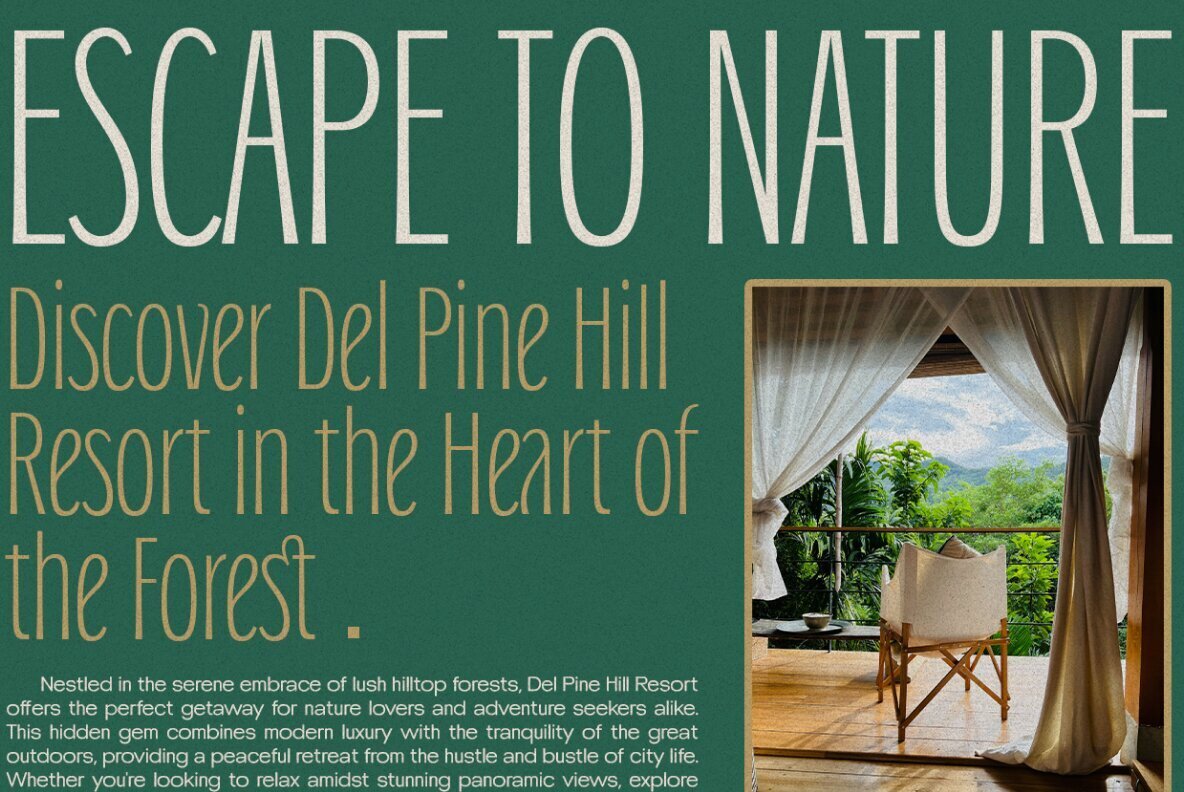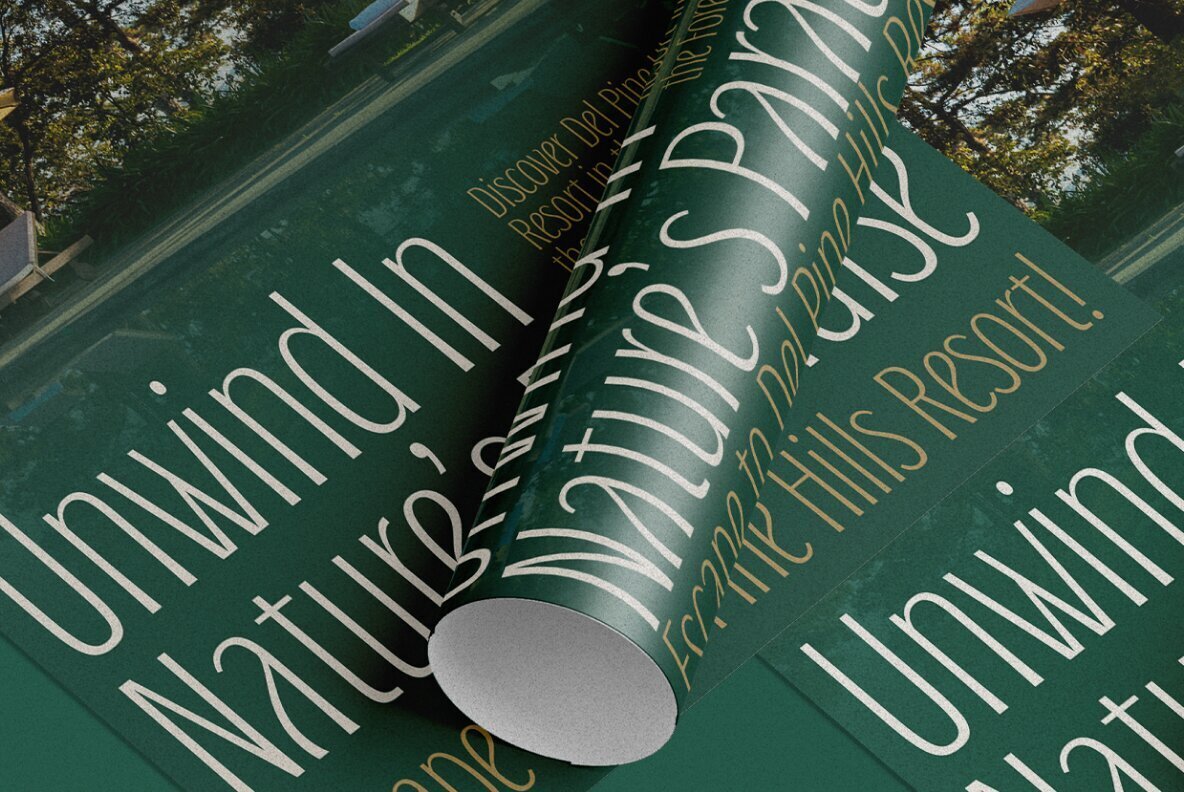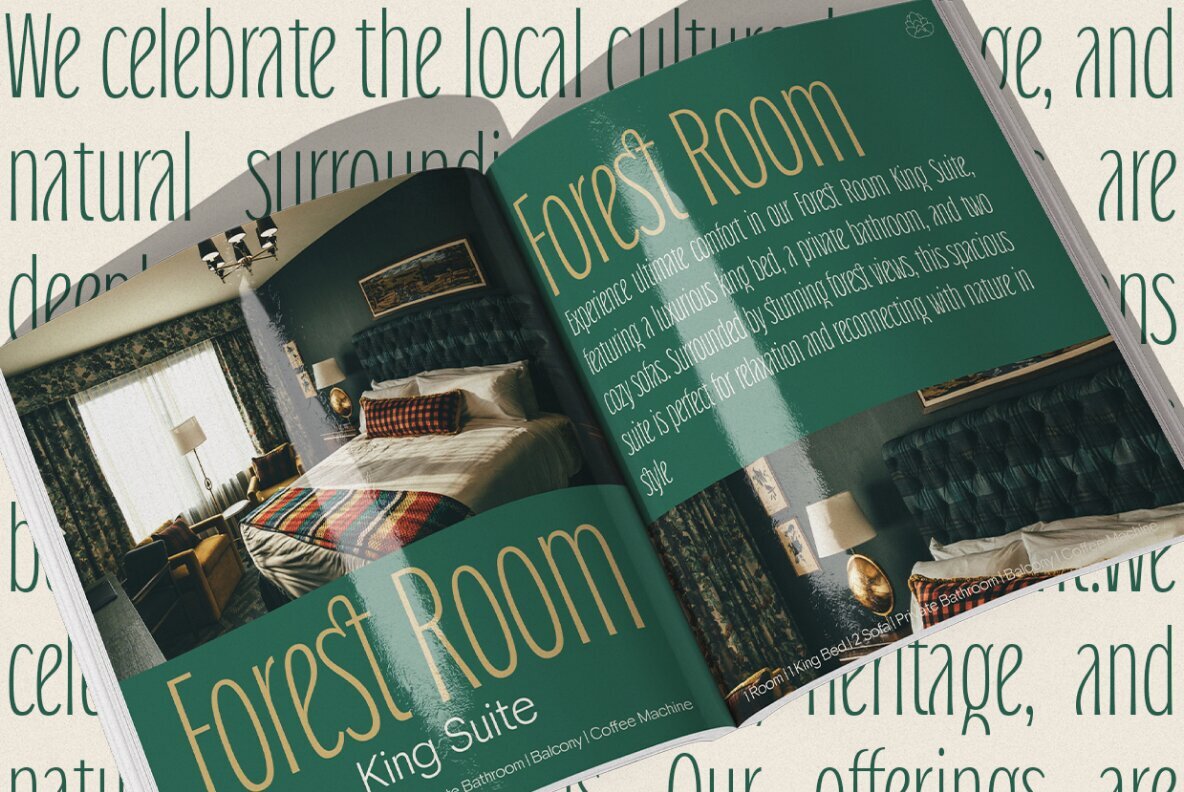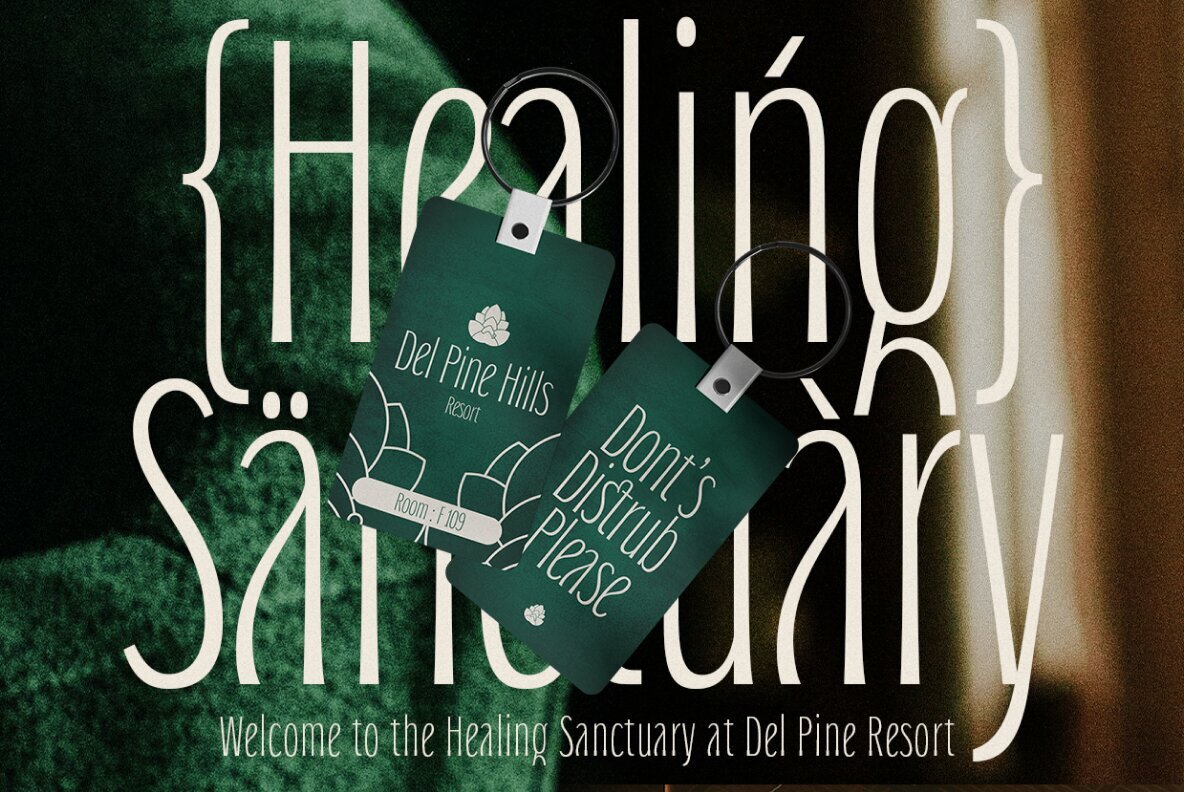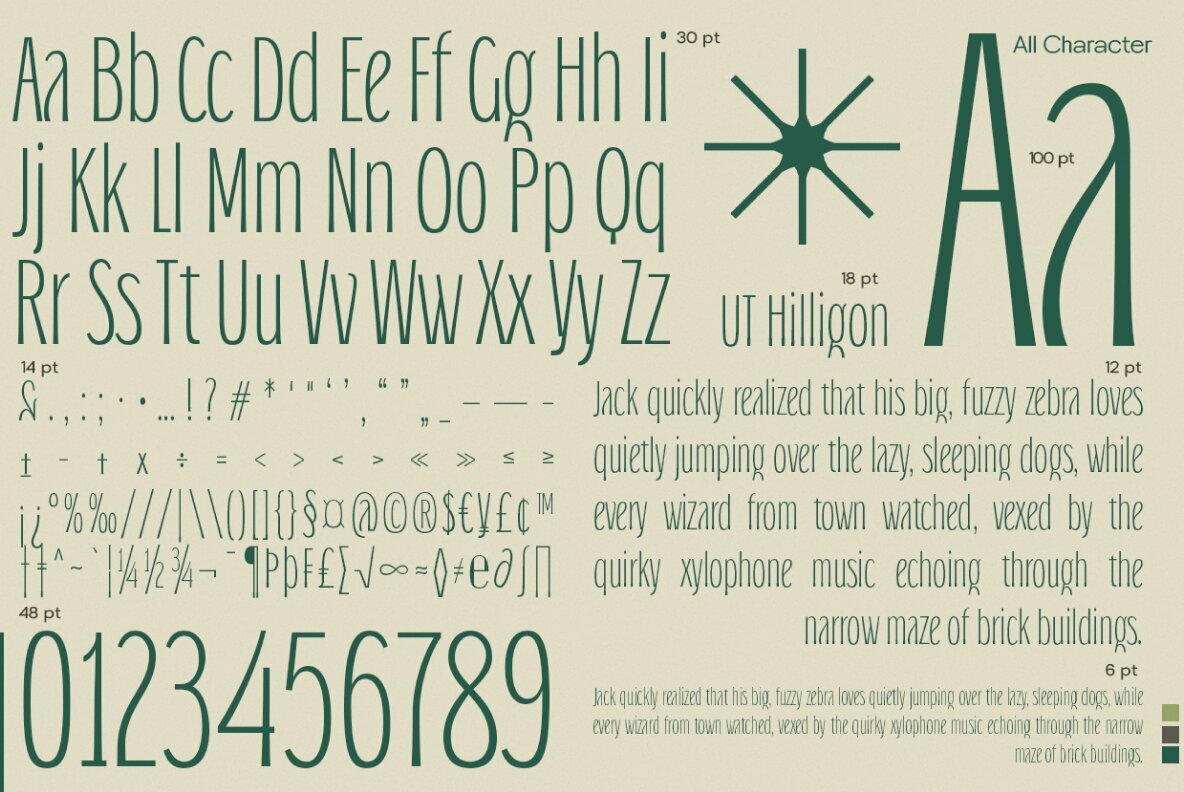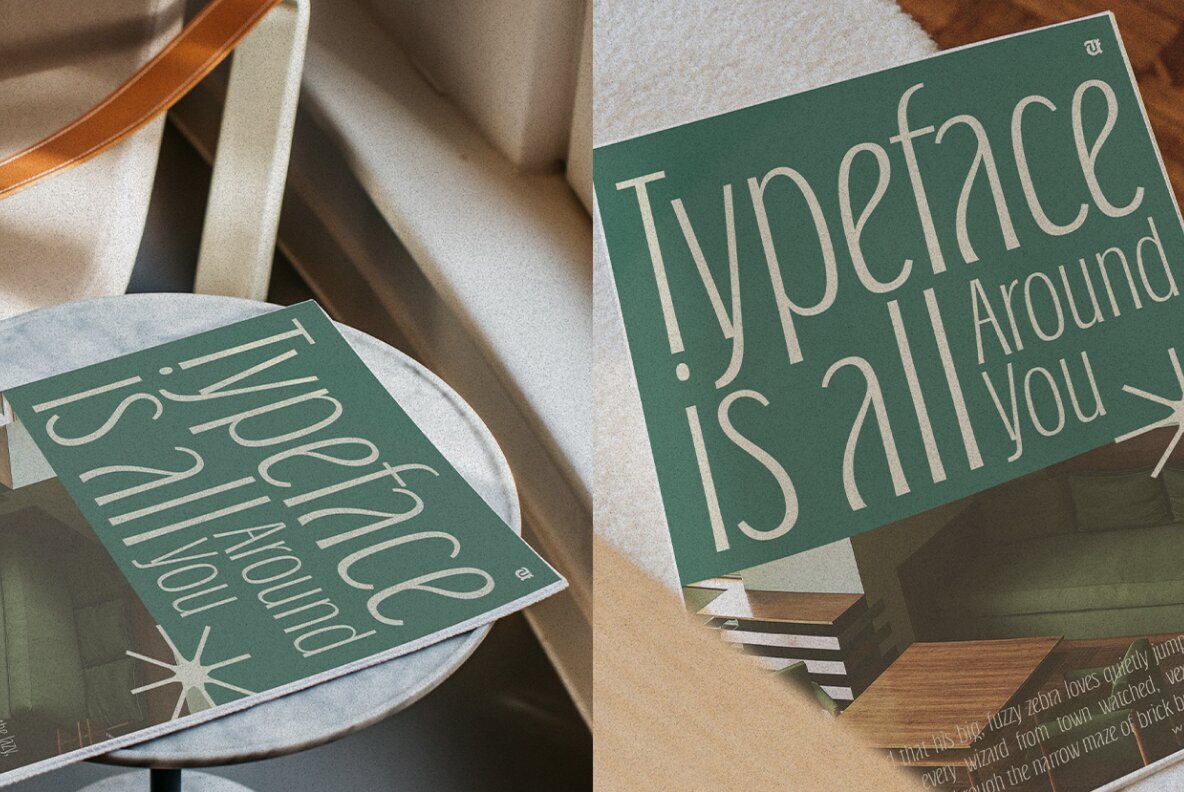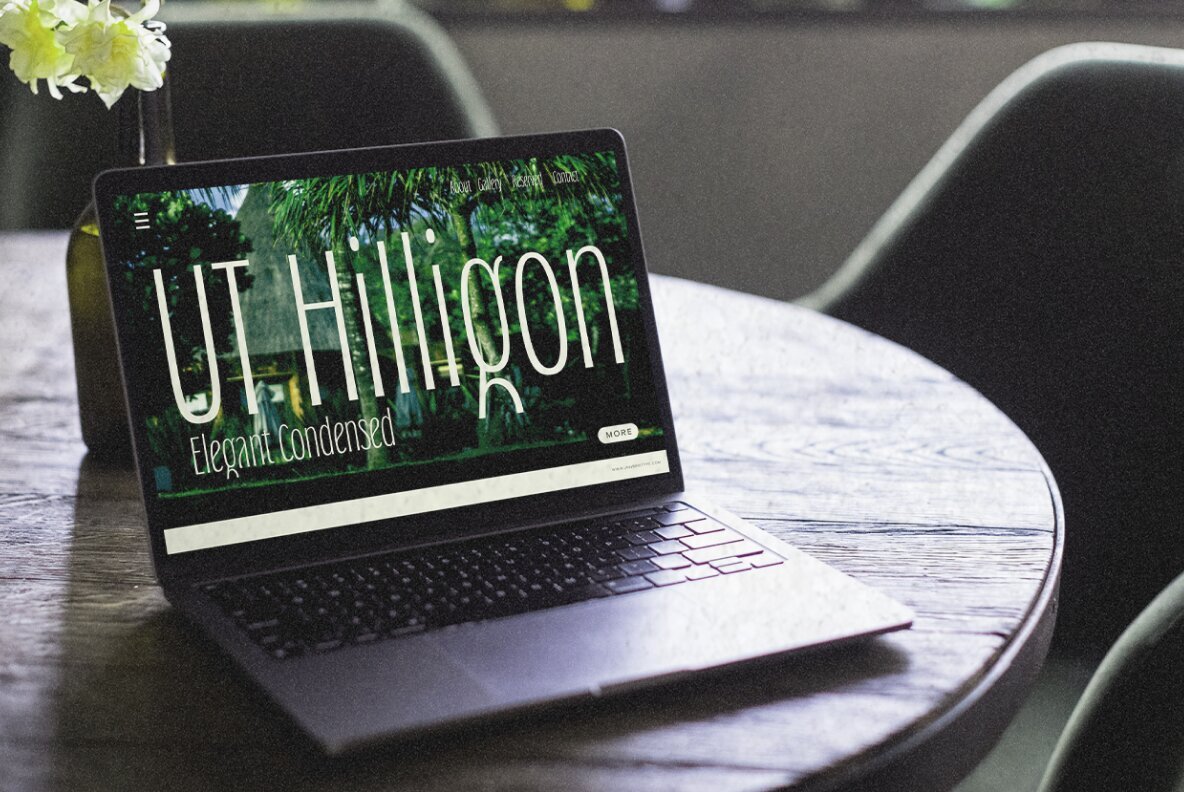
UT Hilligon transcends conventional typography, weaving the organic charm of nature into a luxurious aesthetic. Inspired by the intricate patterns of pine cones, this typeface embodies the warmth and complexity of the outdoors, offering a fresh perspective on design. Crafted for discerning creators, it strikes a harmonious balance between modernity and nature’s grace, making every design endeavor a captivating statement. Sophisticated Elegance Tailored for Luxury
With its refined character, UT Hilligon exudes an air of sophistication, ideal for upscale brands and premium projects. Each letterform hints at nature’s nuances, featuring clean, flowing lines that evoke understated luxury. Whether adorning a high-end logo, enhancing an editorial layout, or elevating an exquisite product label, this typeface resonates with audiences who value both artistry and meticulous craftsmanship. Inspiration Behind UT Hilligon
Born from the enchanting forest, UT Hilligon draws inspiration from the scattered beauty of pine cones. Their textured surfaces and symmetrical spirals inspired the designer to transform these organic forms into a striking typographic language. The outcome is a typeface that celebrates nature’s intricacies while offering the structured lines essential for contemporary design.